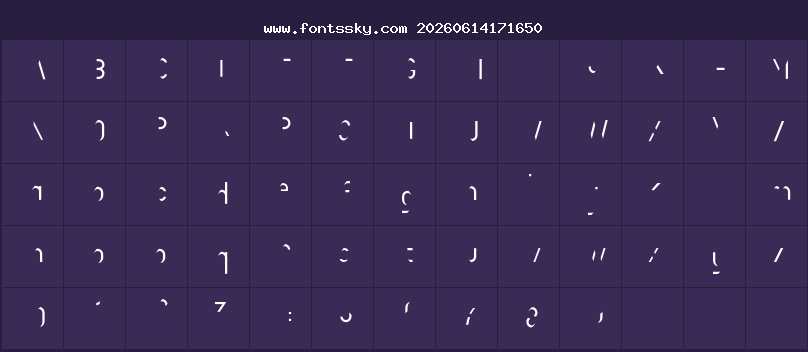
• Font Name: Boisu Fill
• Full Font Name: Boisu Fill
• Designer: Yann Gall
About Boisu Fill.otf
Boisu Fill.otf is a modern, elegant sans-serif font designed for ultimate readability and visual harmony. Perfect for branding, headlines, web design, and print materials.